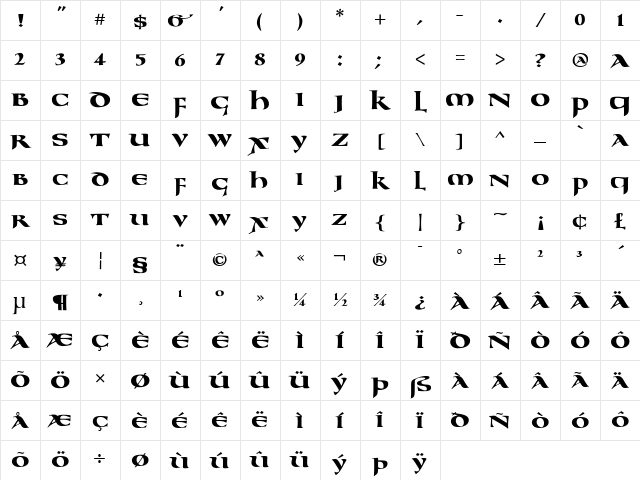
AIBenedictUncial Regular Free Font
AIBenedictUncial Regular
Foundry: Copr. by Philip Bouwsma
Design Context for AIBenedictUncial
AIBenedictUncial is a composed and adaptable typeface that performs quietly and consistently across a wide range of design contexts.
Who designed the AIBenedictUncial Regular font?
This font was published by Copr. by Philip Bouwsma. Check the technical specs section for copyright and designer details.